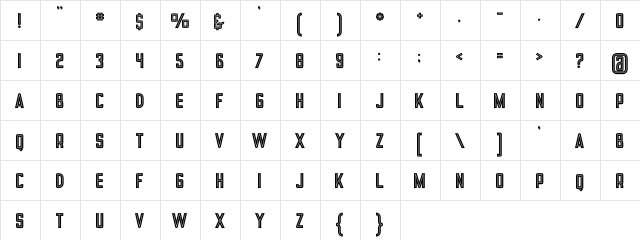
Tron Bold Inline Bold Inline
| Foundry | cruzine |
| Designer | cruzine |
Design Context for Tron Bold Inline Typeface
Tron Bold Inline brings ornamental detail and strong personality to headlines and identities, where visual impact matters more than quiet functionality. The heavy weight commands attention and anchors typographic hierarchies.
Font Pairing: Pair with a clean neutral sans-serif for body copy to let Tron Bold Inline's character lead without overwhelming the composition.
Pro Tip: Use Tron Bold Inline exclusively at display sizes — it was designed to be seen, not read at length. Let a neutral companion handle body copy.